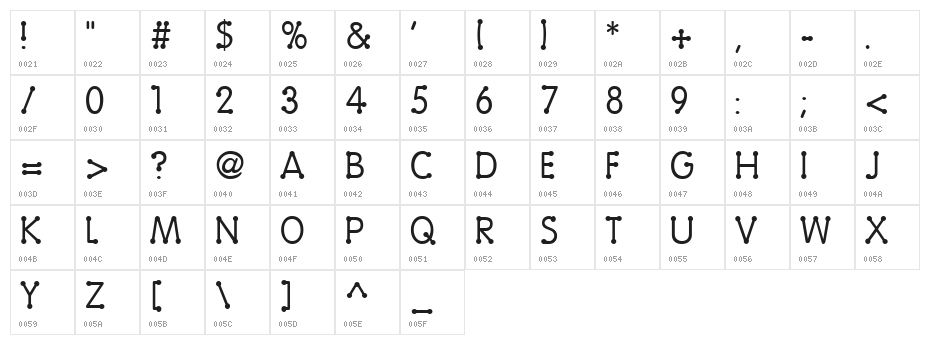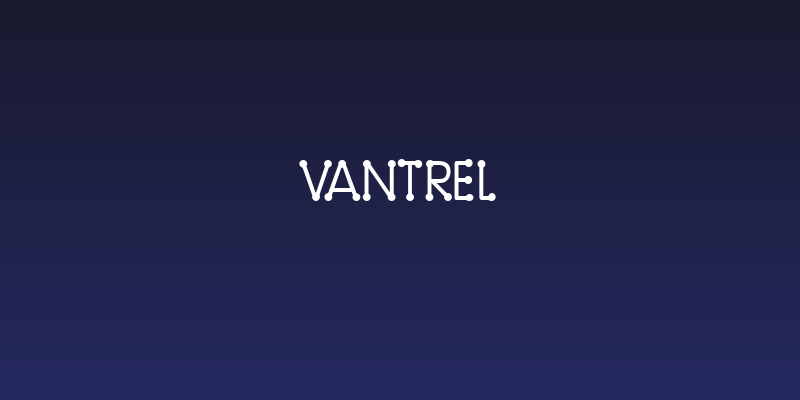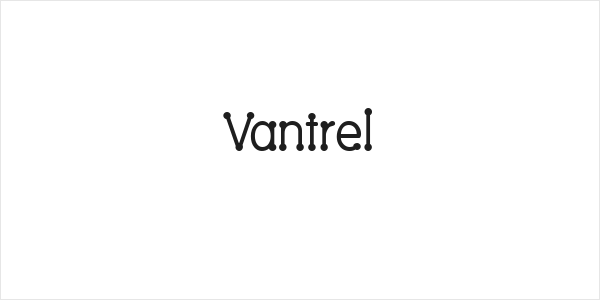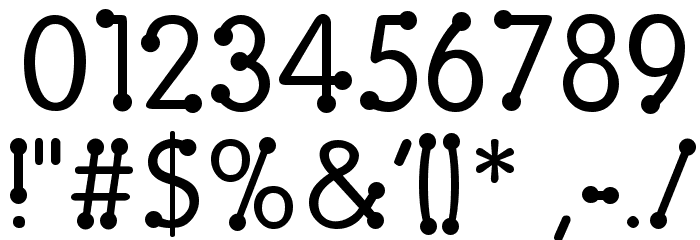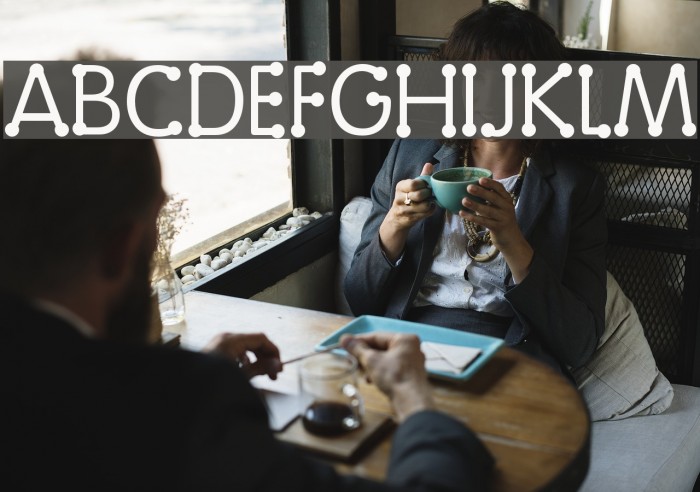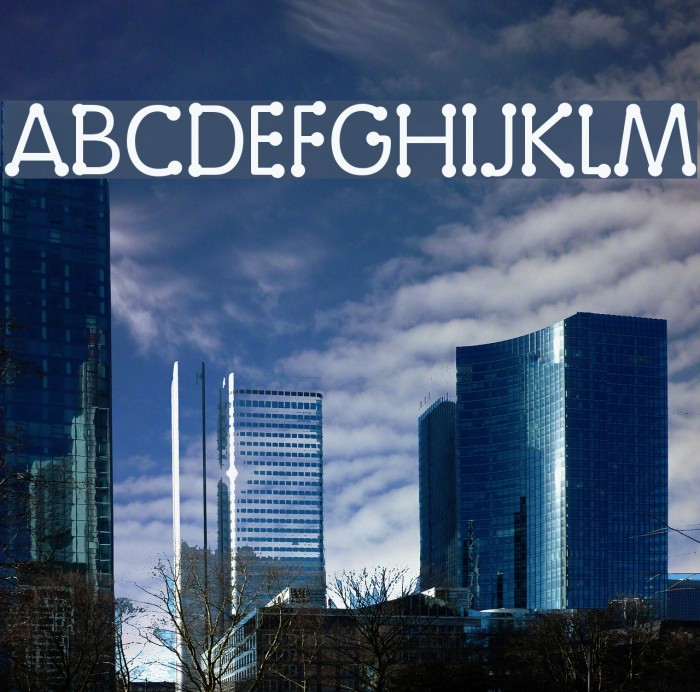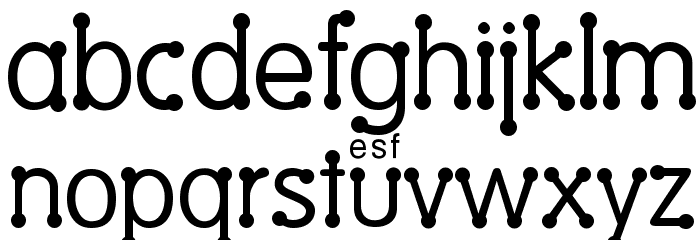
Vantrel Font
Vantrel Description
This font features a playful and unique design with rounded terminals that resemble small dots at the ends of each stroke. The characters are evenly spaced and maintain a consistent weight throughout, giving it a balanced and harmonious appearance. The uppercase and lowercase letters are distinct yet complementary, with a modern twist on traditional letterforms. The numerals and special characters follow the same design principles, ensuring a cohesive look across all elements. This font's whimsical style makes it stand out, while its clarity ensures readability.